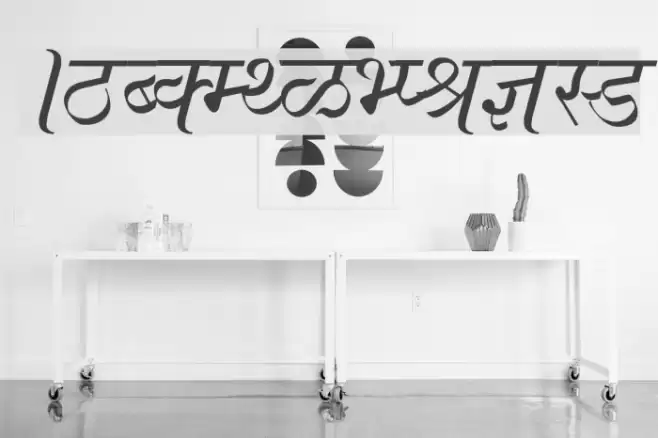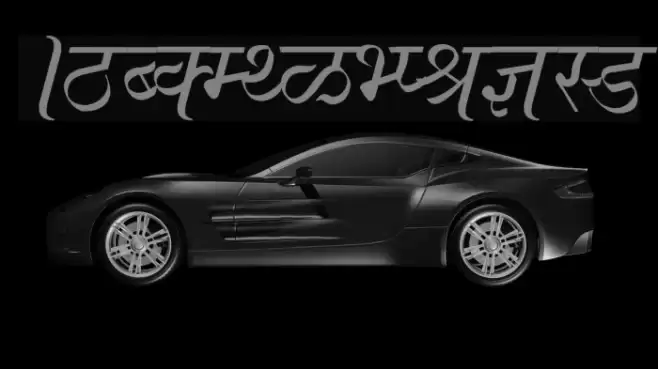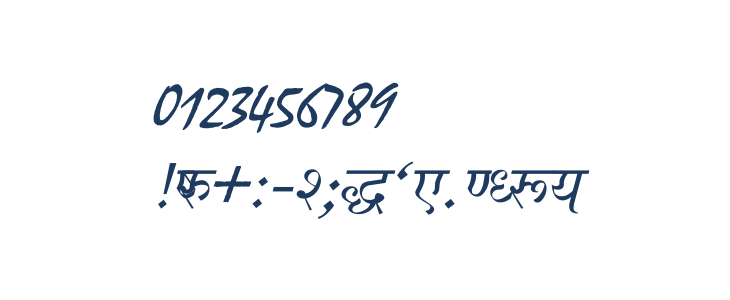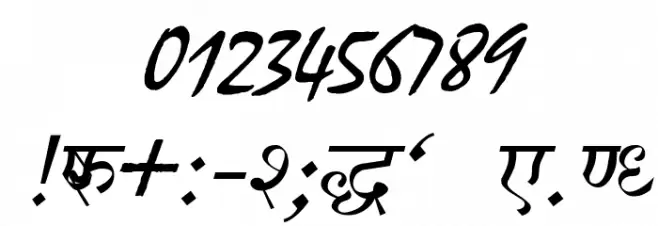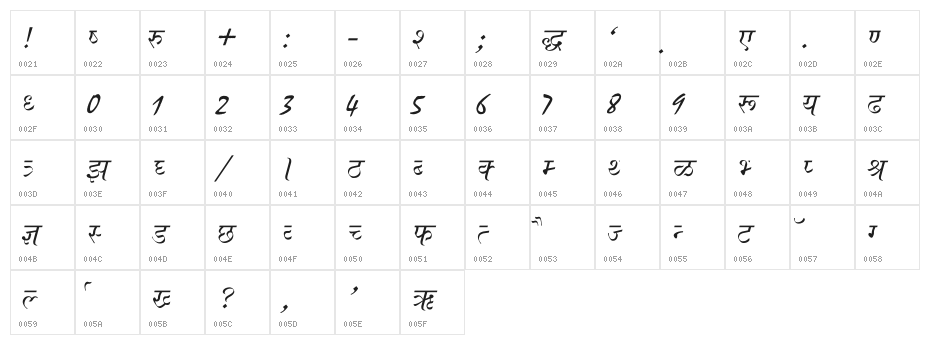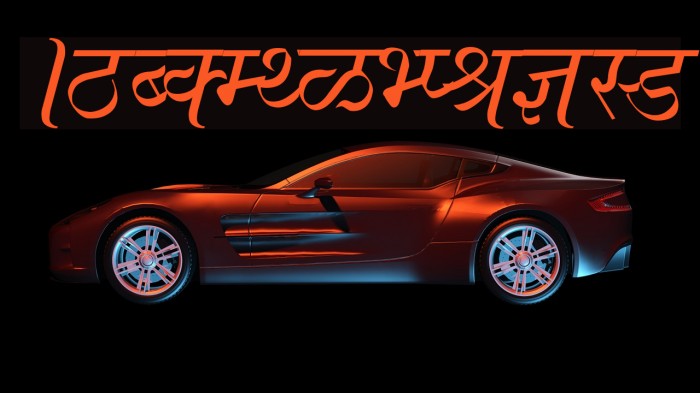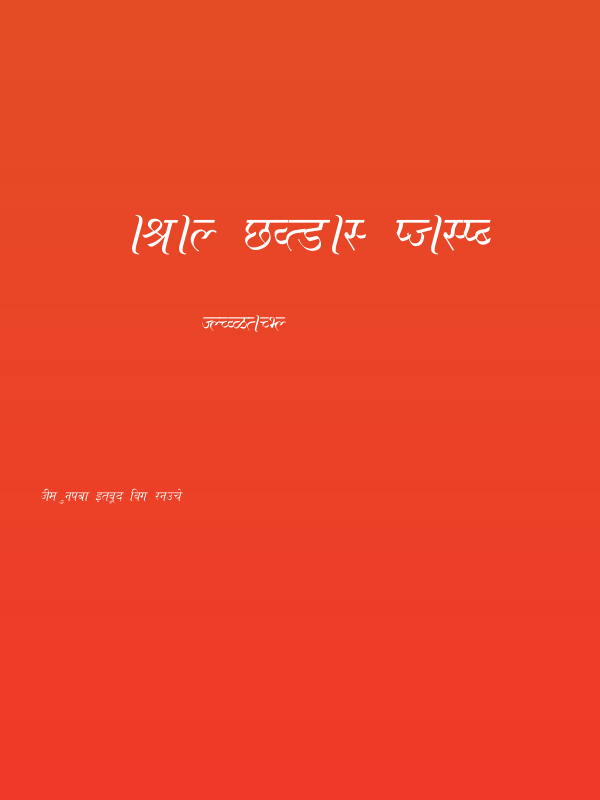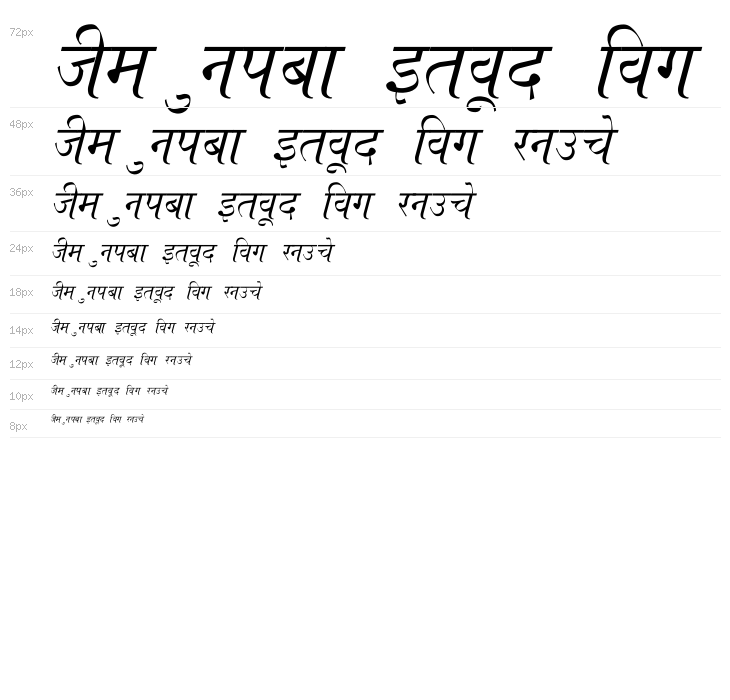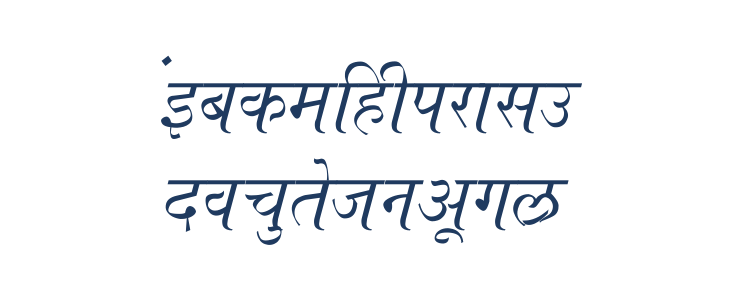
Ajay Normal Italic Font
Ajay Normal Italic Description
This font features a dynamic and flowing style, characterized by its italicized form and elegant curves. The script is reminiscent of traditional calligraphy, with a modern twist that adds a sense of movement and grace. The characters are well-defined, with a consistent stroke width that provides a harmonious appearance. The numerals are distinct and maintain the same flowing aesthetic as the letters, ensuring readability while maintaining the font's artistic flair. Special characters are integrated seamlessly, complementing the overall design. This font is suitable for projects that require a touch of sophistication and elegance.
A dynamic, italicized script font with elegant curves and a calligraphic style from Uncategorized fonts.